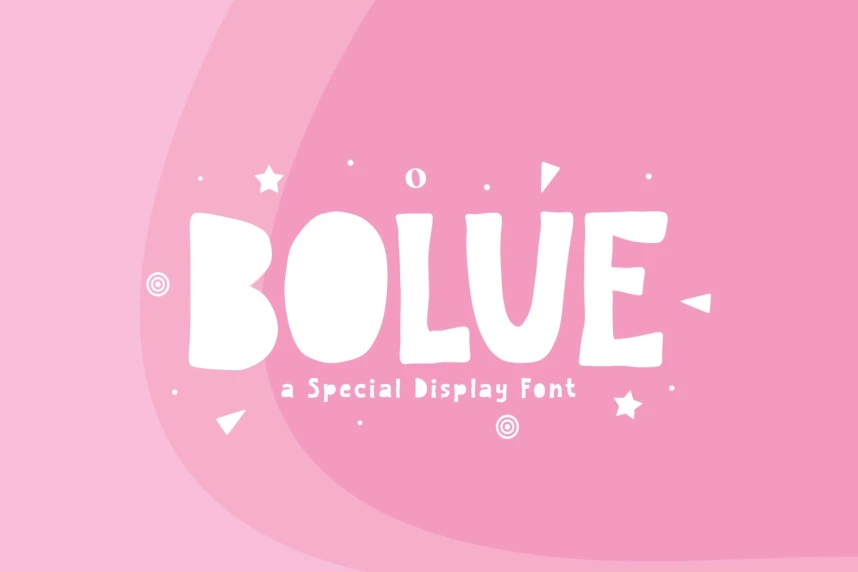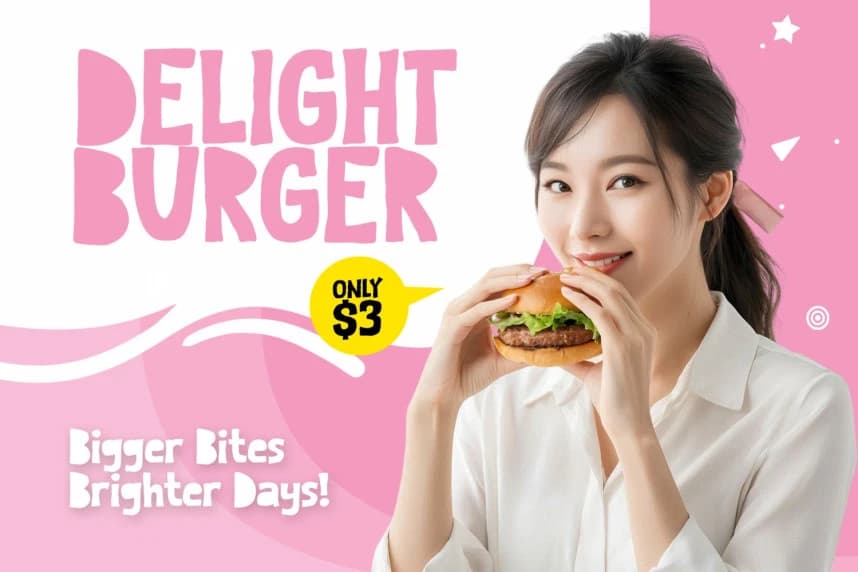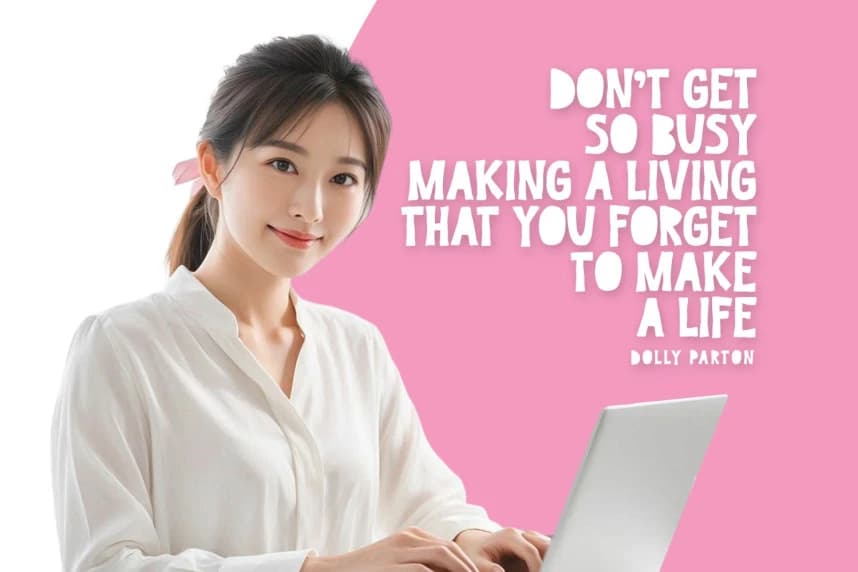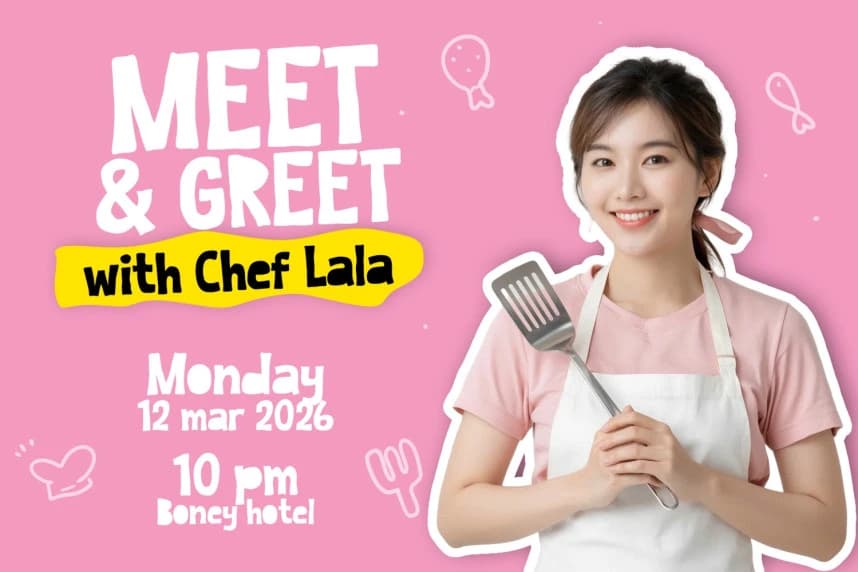
Bolue Playful Font
Bolue Playful Font- Bring pure childlike wonder to your designs with Bolue's irresistibly sweet and playful display font! This contemporary handwritten typeface bursts with vibrant personality and spirited energy that instantly captures attention.